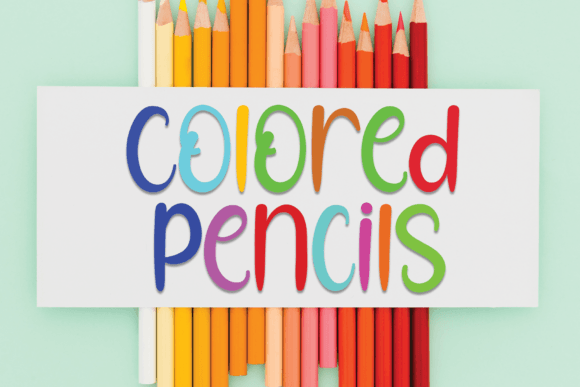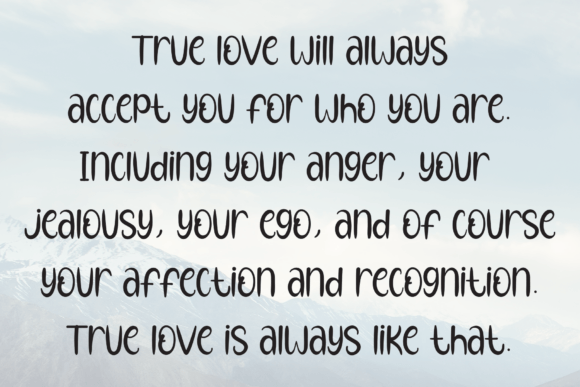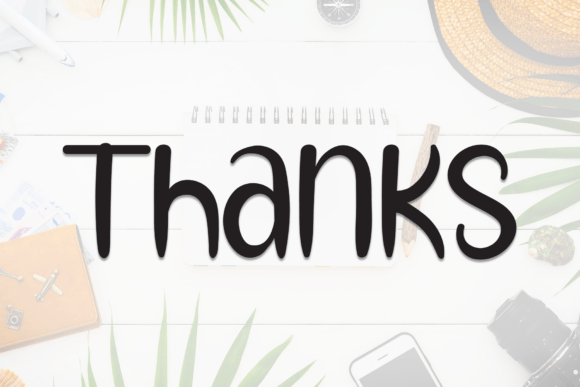
Introduction to Holiday Planner Font
Do you remember that moment when you stumbled upon the perfect font for your design project, and it instantly transformed your idea into a masterpiece? For designers, finding the right font can be the difference between a good design and an exceptional one. That’s why we’re excited to introduce the Holiday Planner Font, a hand-scripted display wonder that’s sure to elevate your creative projects.
This delightful font is not just a design resource, but a key to unlocking the full potential of your creative project. With its pleasant, hand-lettered style, it adds a touch of warmth and whimsy to any design, making it perfect for wedding invitations, personalized cards, or any project that requires a high-quality, free-spirited feel. Whether you’re working on a project with a transparent background or a bold, eye-catching design, the Holiday Planner Font is the perfect addition to your design arsenal.
Key Features of Holiday Planner Font
- High-quality design resource ideal for creative projects, including planners, journals, and calendars.
- Unique, festive design featuring transparent background, allowing for easy customization and layering.
- Perfect for adding a touch of holiday cheer to any creative project, from greeting cards to party invitations.
- Easy-to-read font, with clear and legible characters, making it perfect for use in planners, journals, and other print materials.
Honest Review: Holiday Planner Font
As a designer, I’m always on the lookout for high-quality design resources to elevate my creative projects. Recently, I stumbled upon the Holiday Planner Font, and I must say it’s been a game-changer.
- ✨ The font is incredibly versatile and can be used for a variety of projects, from holiday planners to social media graphics.
- ✨ The design is modern and sleek, with a transparent background that makes it easy to layer over other elements.
- ⚠️ The font may not be suitable for projects that require a lot of bold or italic text, as it can become difficult to read.
- ⚠️ The font is a bit limited in terms of customization options, which may not be ideal for designers who like to get creative with their typography.
Overall, I’m really impressed with the Holiday Planner Font. It’s a high-quality design resource that can add a touch of elegance to any project. With its transparent background and modern design, it’s perfect for designers who want to create visually appealing graphics without breaking the bank.
Holiday Planner Font
Discover the perfect design resource for your next creative project – the Holiday Planner Font. This high-quality font is designed to help you create stunning holiday-themed materials, from invitations to decorations. With a transparent background, you can easily customize it to fit your design needs.
The Holiday Planner Font is perfect for:
- Creating holiday invitations and cards.
- Designing festive decorations and banners.
- Developing holiday-themed social media graphics.